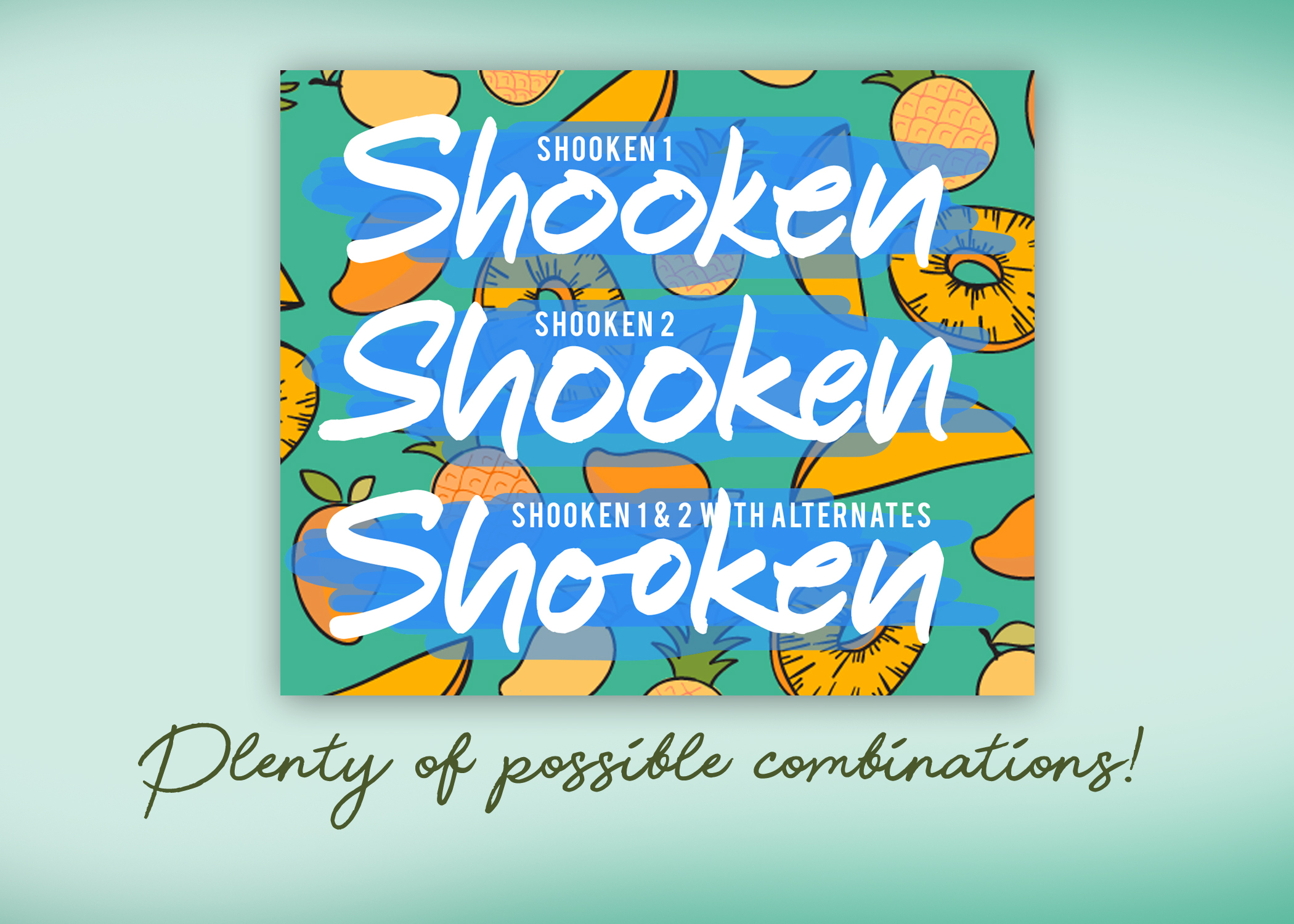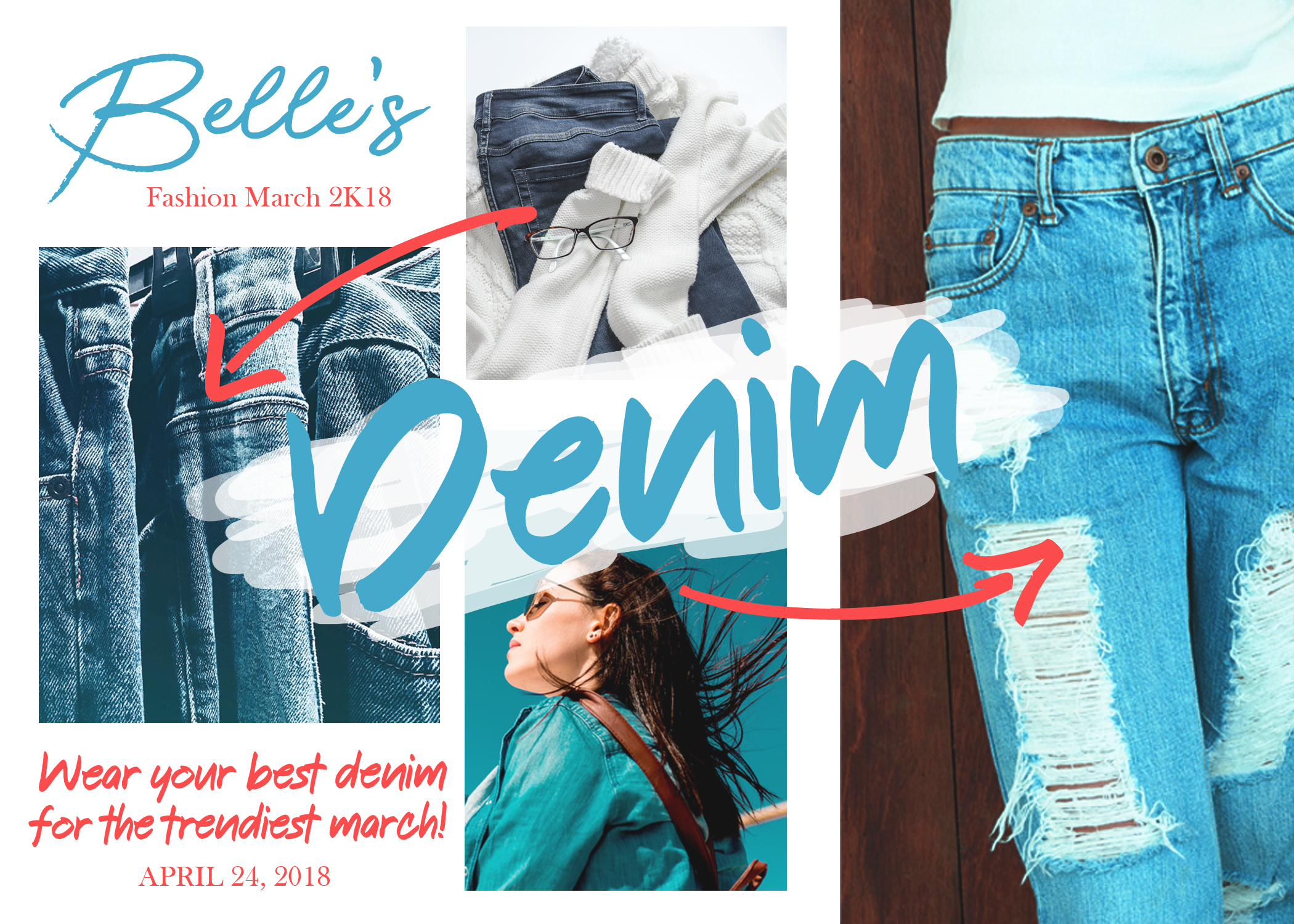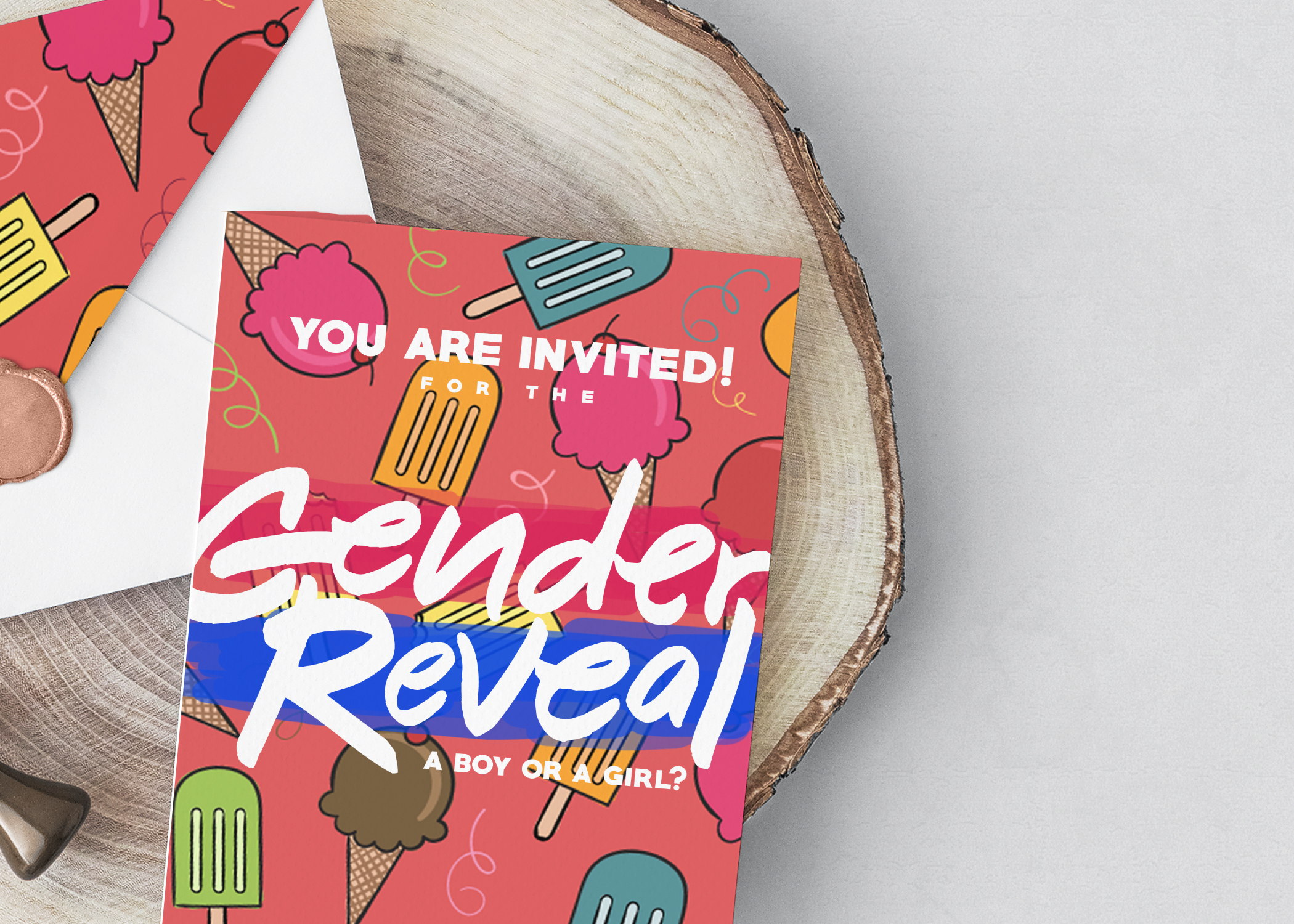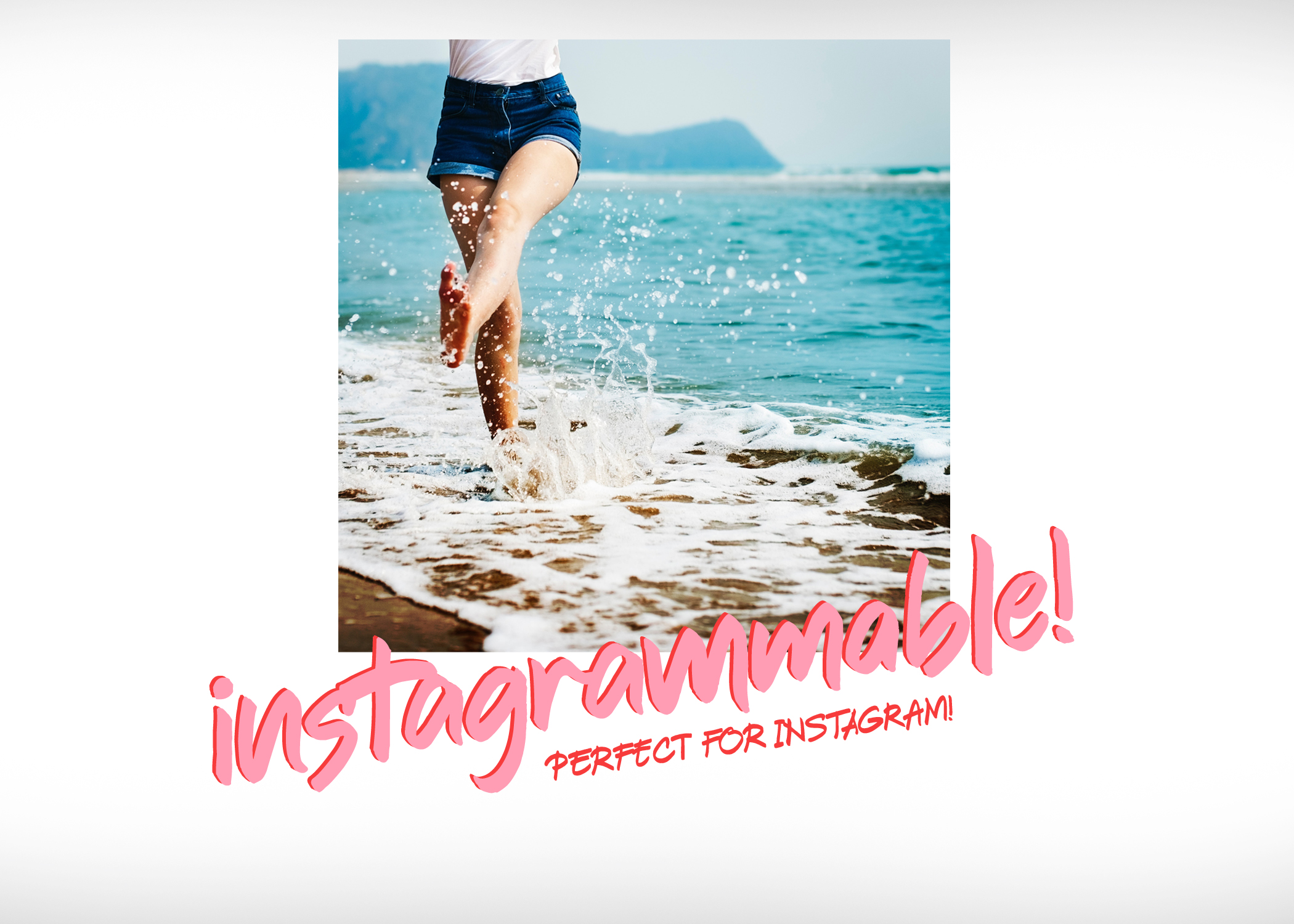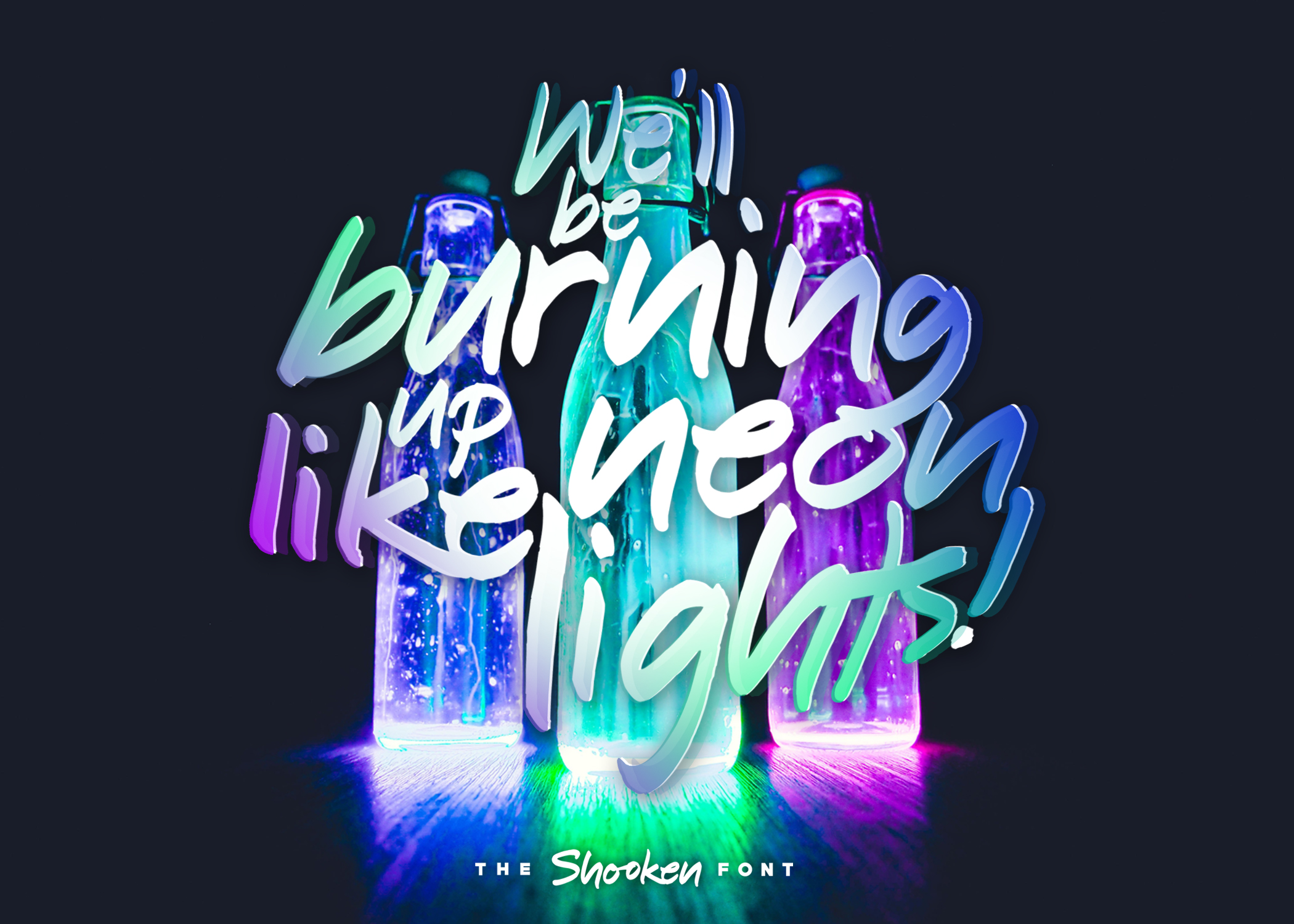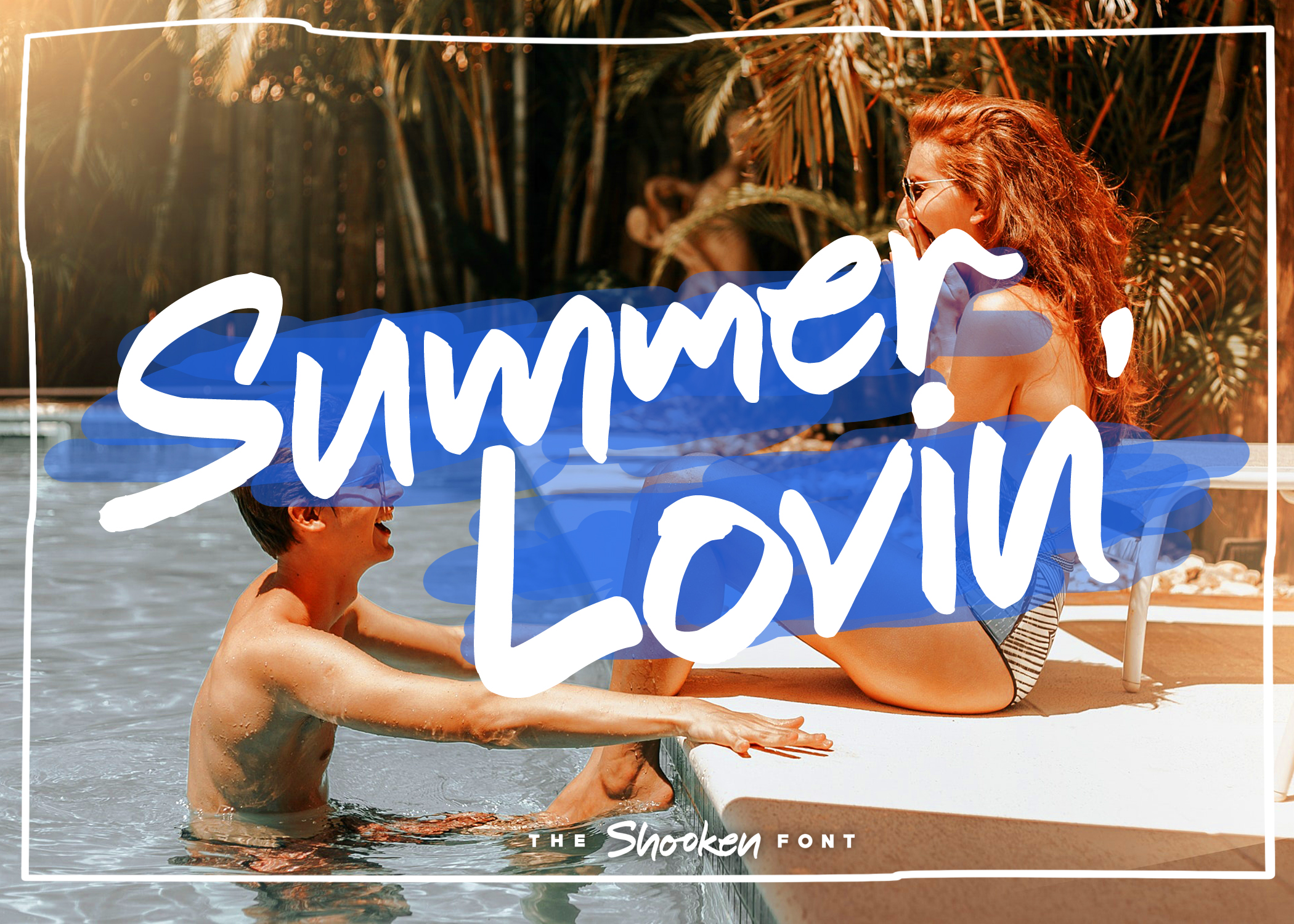
Introduction to Shooken Font
You know that moment when you stumble upon a design resource that completely changes the direction of your creative project? For many designers, that moment is what makes the long hours and endless cups of coffee worth it. I recently experienced that exact moment when I discovered the Shooken Font.
This font is more than just a pretty face – it’s a game-changer. With its quirky, cartoonish style, it can add a touch of whimsy to even the most mundane designs. But what really sets it apart is its versatility. Whether you’re looking to create a playful logo for your company or simply want a high-quality font for your next design project, Shooken Font is the perfect choice.
Key Features of Shooken Font
- High-quality design resource perfect for creative projects
- Unique, modern font with a transparent background for versatility
- Perfect for designers and artists seeking a unique, high-quality design resource for their creative project
Honest Review: Shooken Font
I recently came across the Shooken Font and I’m excited to share my thoughts on this design resource. The first thing I noticed was its sleek and modern aesthetic, perfect for any creative project that requires a high-quality font.
Here are some things that work well with the Shooken Font:
- ✨ High-quality design: The font is well-crafted and visually appealing.
- ✨ Transparent background: The font has a transparent background, making it easy to use on any background.
- ⚠️ Limited character set: The font only includes a limited set of characters, which may not be suitable for projects that require a wide range of characters.
- ⚠️ Not suitable for small text: The font may not be legible when used in small text sizes.
Overall, I’m impressed with the Shooken Font, but it’s not perfect. If you’re looking for a high-quality font for a creative project, I’d definitely recommend checking it out. Just be aware of its limitations and use it accordingly.
How to Use Shooken Font
Tips for Getting the Most Out of Shooken Font
To get the most out of the Shooken Font, use it on a transparent background to give your designs a clean and modern look. Experiment with different font sizes and combinations to create visually appealing designs.
The Shooken Font is ideal for a variety of creative projects, including social media graphics, presentations, and marketing materials. Its unique design and transparent background make it perfect for creating eye-catching and professional-looking designs.
Alternatives to Shooken Font
The Pacifico Font is a high-quality, elegant sans-serif font perfect for creative projects requiring a clean and modern look. It features a transparent background and is ideal for use in design resources such as logos, brochures, and websites. Pacifico Font is a great alternative to Shooken Font for designers seeking a more modern and minimalist look.
The Lobster Font is a fun, casual script font ideal for creative projects requiring a playful touch. It features a transparent background and is perfect for use in design resources such as social media graphics, posters, and flyers. Lobster Font is a great alternative to Shooken Font for designers seeking a more playful and attention-grabbing look.
Can I use Shooken Font with a transparent background?
Yes, Shooken Font is designed to work with transparent backgrounds, allowing for a seamless integration with your design. You can use it to create stunning visuals with a clean and minimalist aesthetic.
Is Shooken Font suitable for high-resolution printing?
Yes, Shooken Font is optimized for high-resolution printing, ensuring that it looks crisp and clear even at large sizes. It’s an ideal choice for designers working on projects that require high-quality printing.